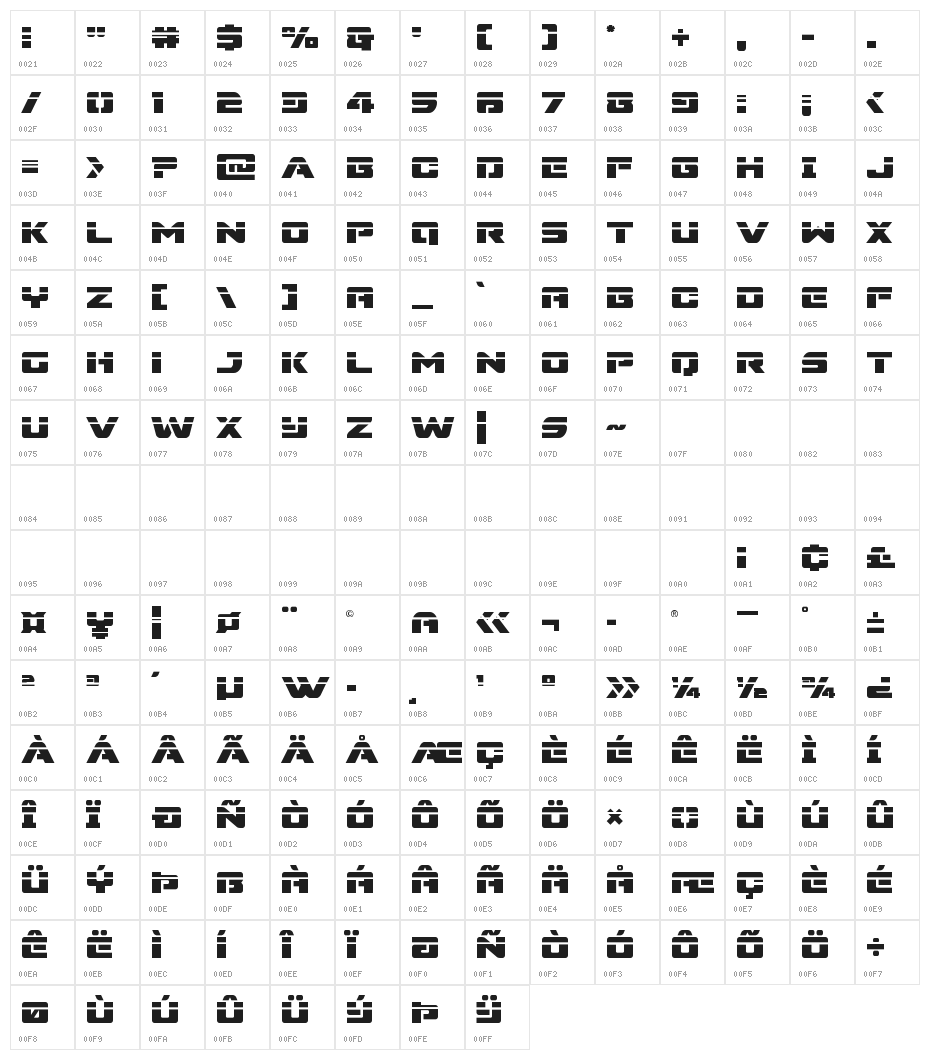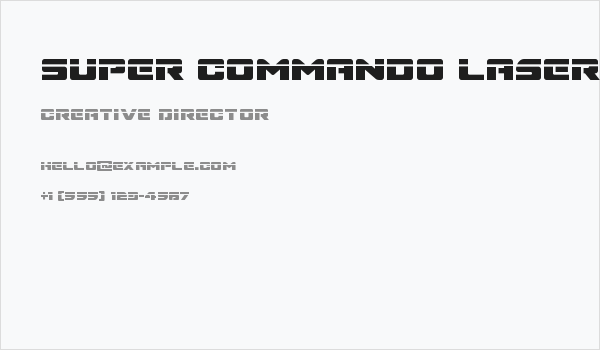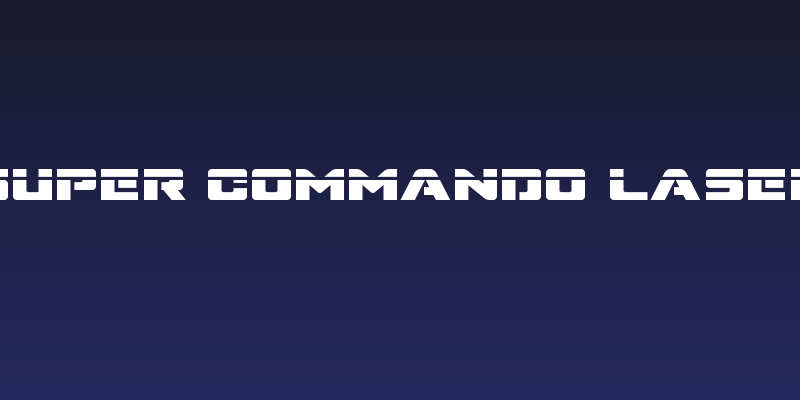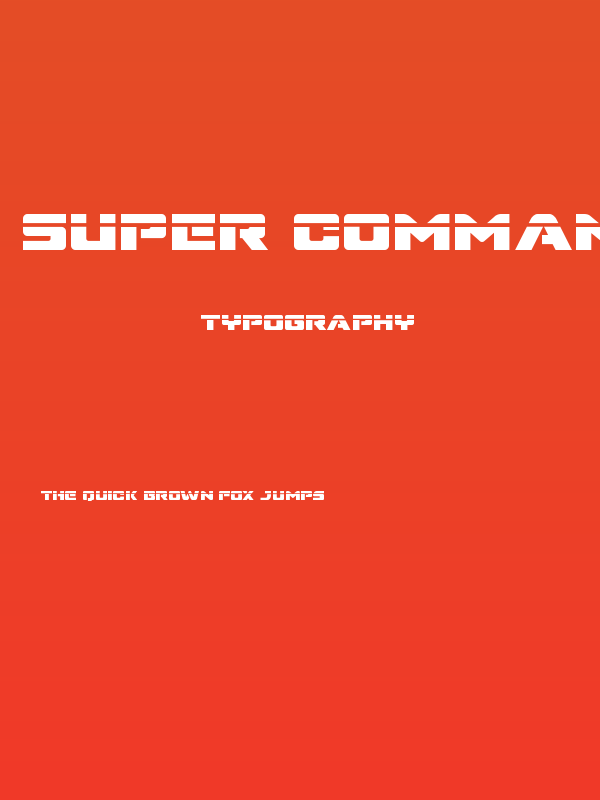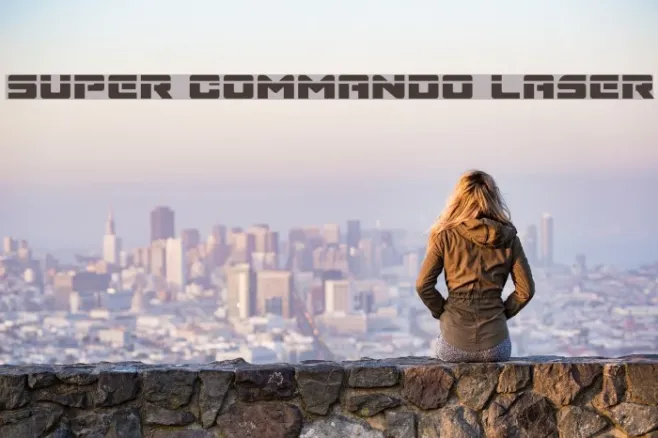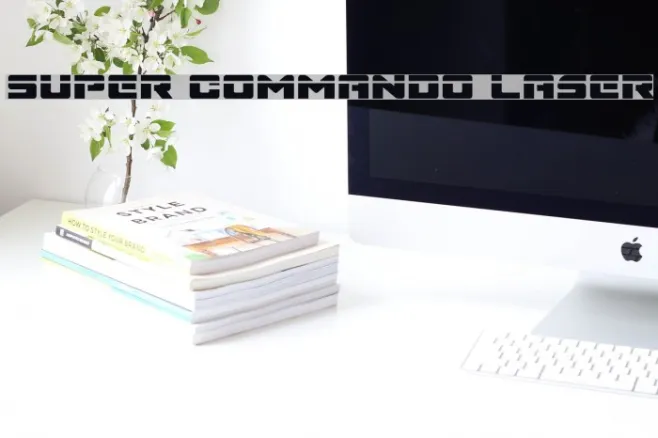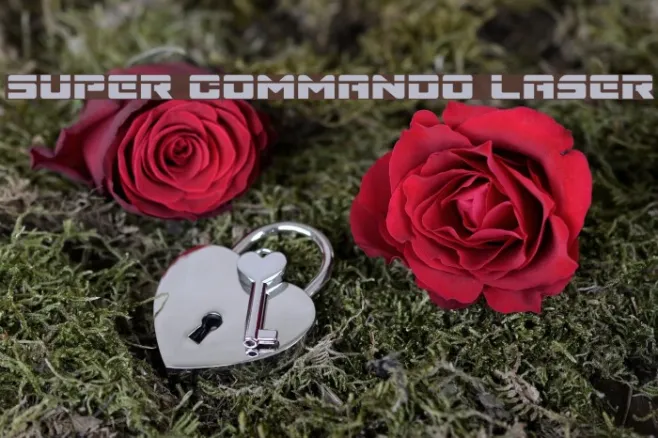
Super Commando Laser Font
Super Commando Laser Description
This font features a bold, futuristic design with a strong geometric structure. The characters are constructed with sharp angles and thick lines, giving it a robust and commanding presence. The uppercase letters are uniform in height, and the lowercase letters maintain a consistent style, enhancing readability. The numbers and special characters follow the same design principles, ensuring a cohesive look across all elements. This font is ideal for projects that require a modern and assertive aesthetic.
| Proposed Projects | Ideal for sci-fi themed posters, video game titles, tech branding, and futuristic event flyers. |